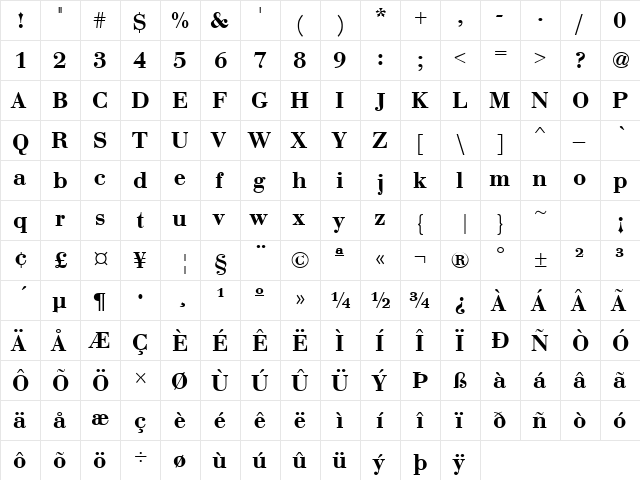
Bodoni-DTC Bold
Design Context for Bodoni-DTC Typeface
Bodoni-DTC is a composed and adaptable typeface that performs quietly and consistently across a wide range of design contexts. The heavy weight commands attention and anchors typographic hierarchies.